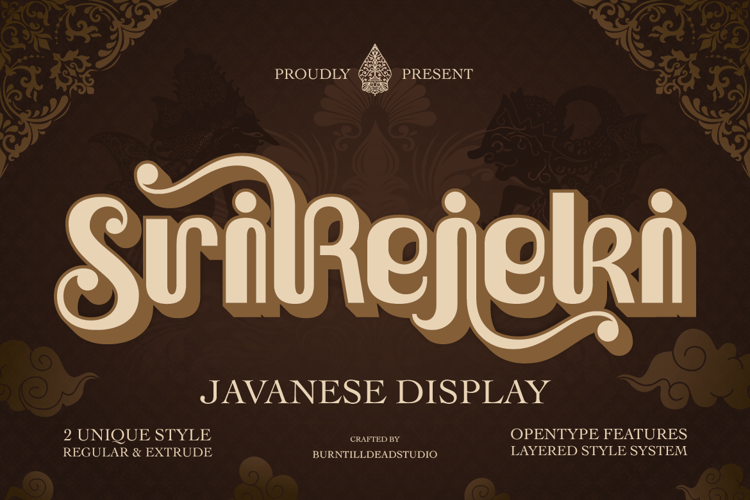
Sri Rejeki Font
Sri Rejeki is a bold Javanese inspired display font featuring elegant curves, decorative swashes, and an ornamental style reminiscent of traditional Javanese calligraphy.
Perfect for:
- Logo & branding design
- Restaurant, warung, and coffee shop signage
- Food packaging & product labels
- Cultural & traditional-themed projects
- Wedding invitations with an ethnic touch
- Social media graphics & posters